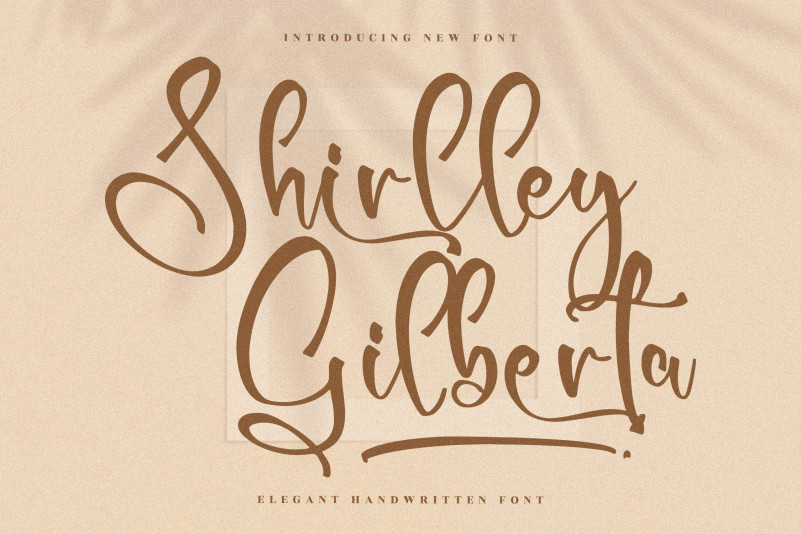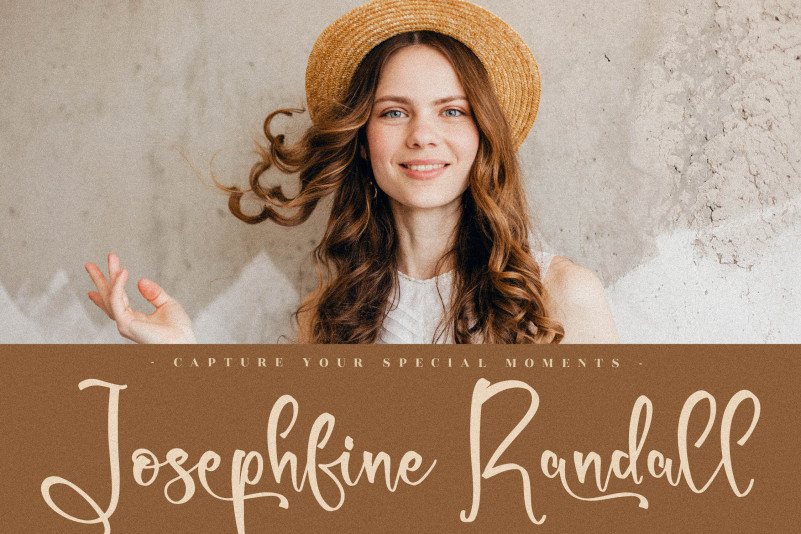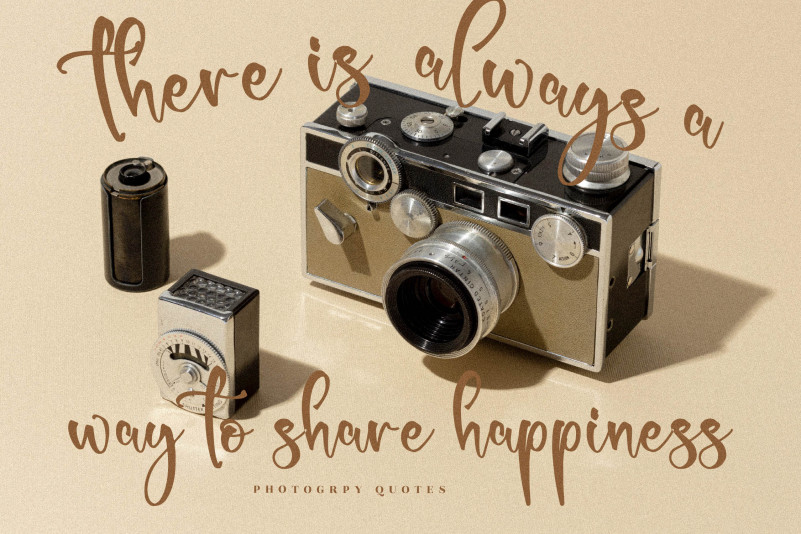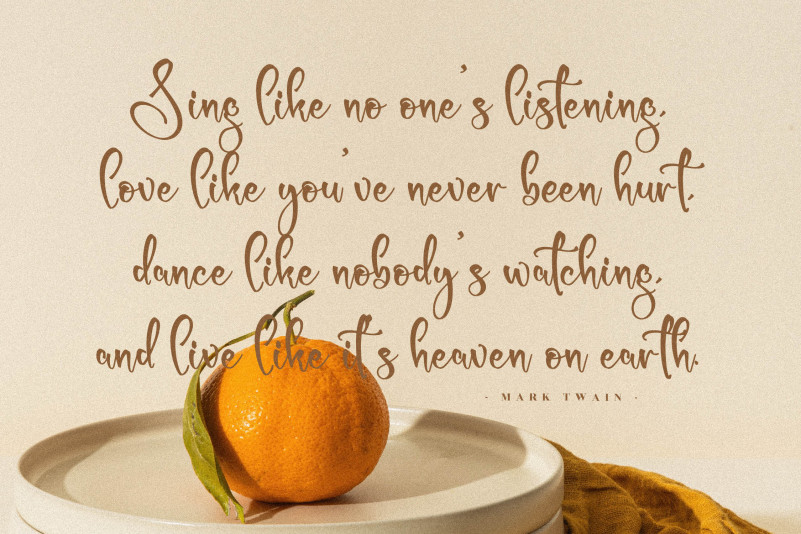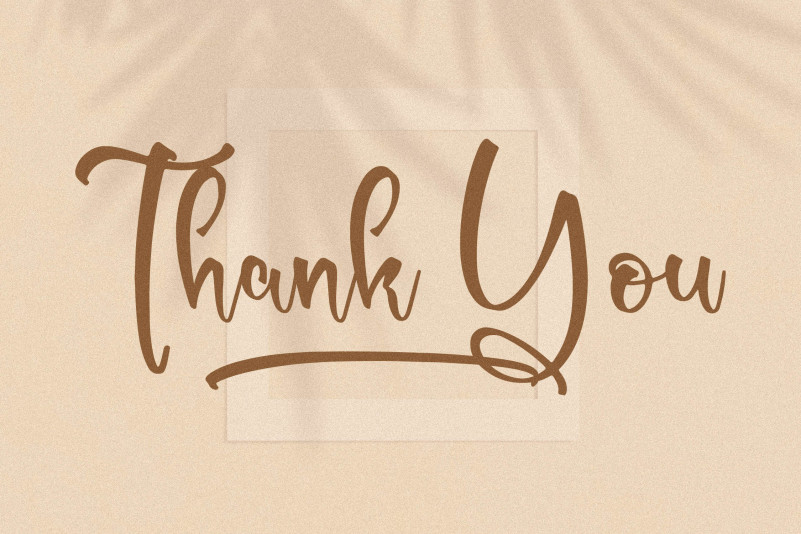
Shirlley Gilberta Font
Shirlley Gilberta Script Font is a Elegant Handwritten Font, suitable for any projects such as: logos, branding projects, homeware designs, product packaging, mugs, quotes, posters, shopping bags, t-shirts, book covers, name card, invitation cards, greeting cards, label, photography, watermark, special events, and all your other lovely projects that need a beautiful script taste.